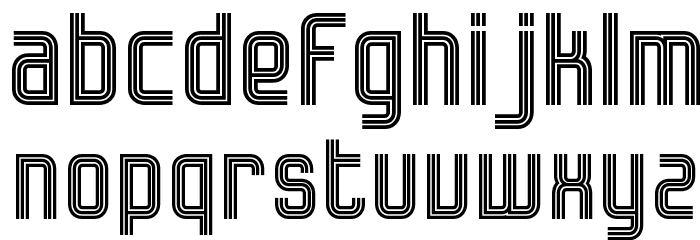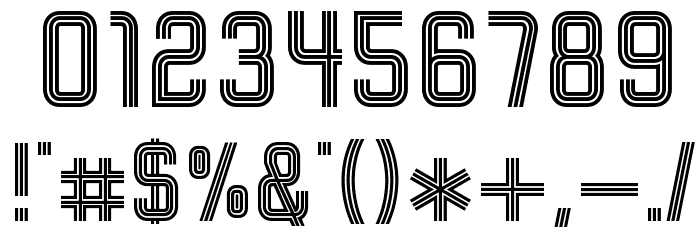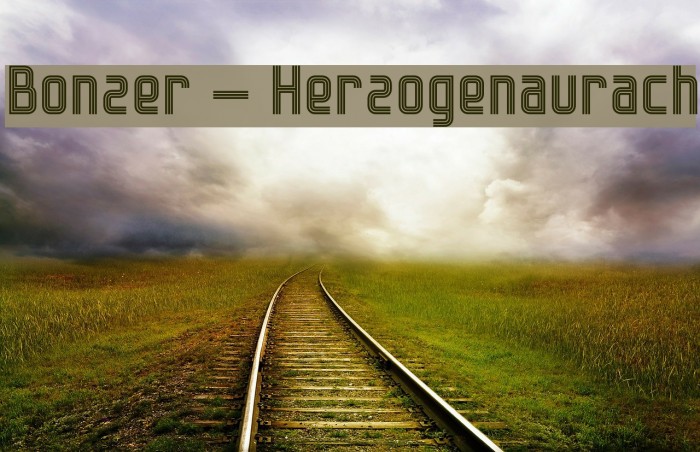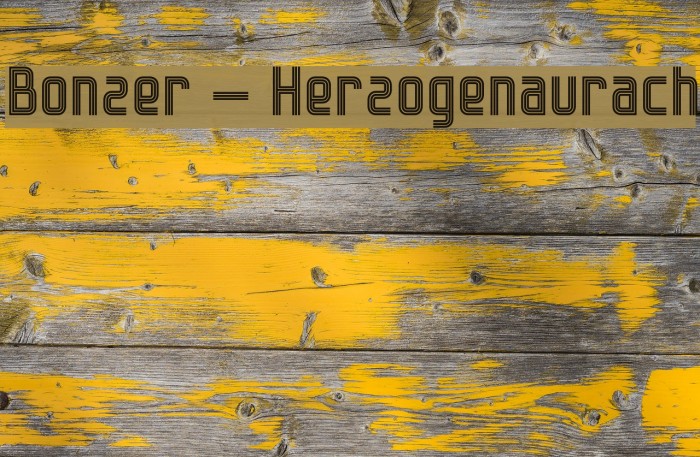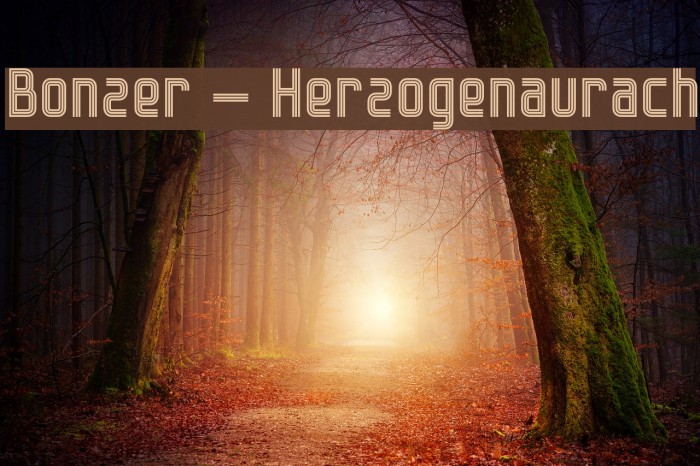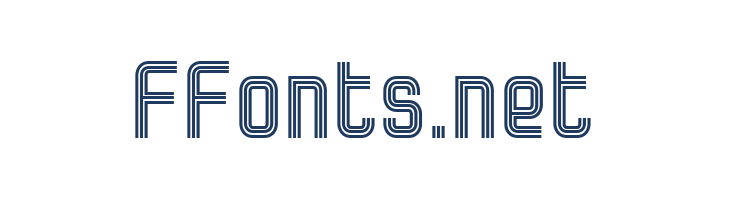
Bonzer - Herzogenaurach Font
This font features a unique, multi-line design that creates a striking visual impact. Each character is composed of several parallel lines, giving it a layered and dimensional appearance. The uppercase and lowercase letters maintain consistent styling, with clean, geometric shapes that emphasize vertical and horizontal lines. Numbers and special characters are designed with the same multi-line approach, ensuring uniformity across the entire character set. The font's structure is bold and eye-catching, making it suitable for projects that require a modern and innovative look. Its distinct style is both futuristic and retro, offering versatility in various design contexts.
A multi-line, geometric font with a bold, modern aesthetic.
- Proposed Projects: Ideal for branding, posters, album covers, and any project needing a bold, modern touch.